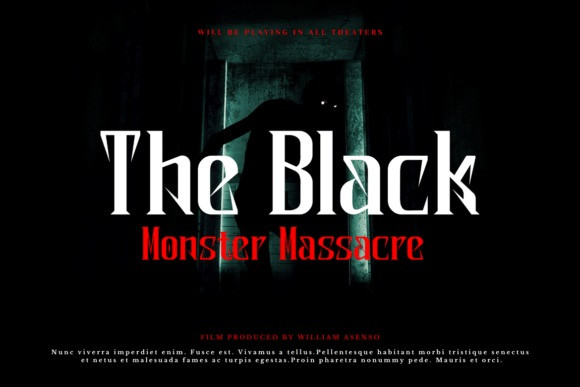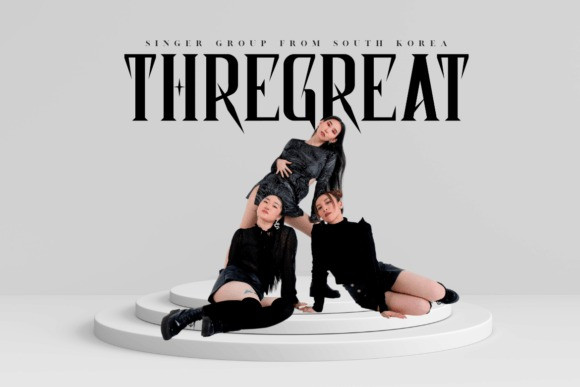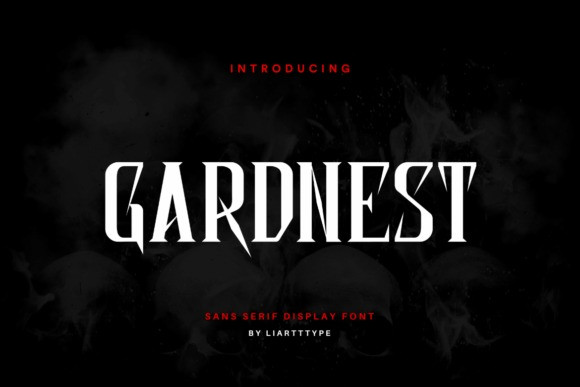
Gardnest Font
Gardnest Font is a futuristic serif typeface. It takes inspiration from sci-fi films, games, and concept art. Great for typography purposes on headlines, posters, and many more.